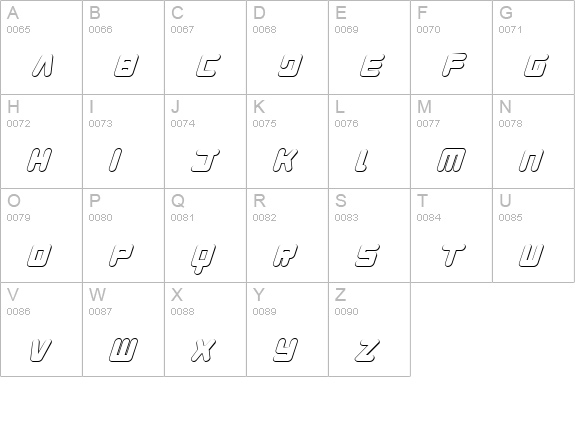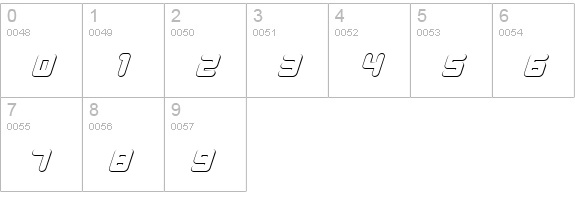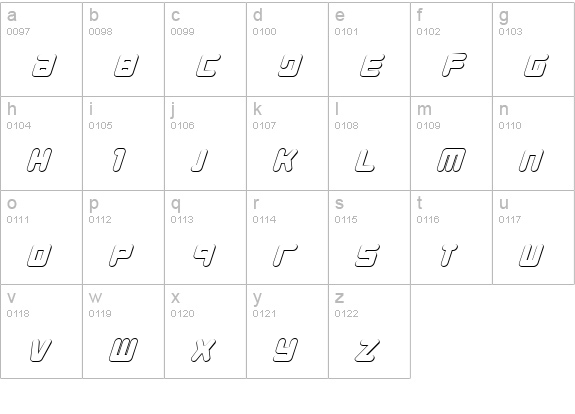
Young Techs 3D Italic Font Details
Young Techs 3D Italic is a distinctive, italic variant in the Young typeface family \xE2\x80\x94 well suited to design and typography projects.
Young Techs 3D Italic font is an innovative and dynamic typeface that brings a futuristic touch to any design project. With its sleek 3D effect and stylish italicized letters, this font is perfect for adding a modern flair to your creations. Whether you're working on a tech startup logo, a sci-fi movie poster, or a cutting-edge website design, Young Techs 3D Italic font will make your text stand out and grab attention. The best part? Young Techs 3D Italic font is available for free download at FontsMarket.com. That's right, you can easily access this striking font without any cost, making it a valuable addition to your font collection. Don't miss out on the opportunity to enhance your designs with the bold and futuristic look of Young Techs 3D Italic font. Download it now and take your projects to the next level!